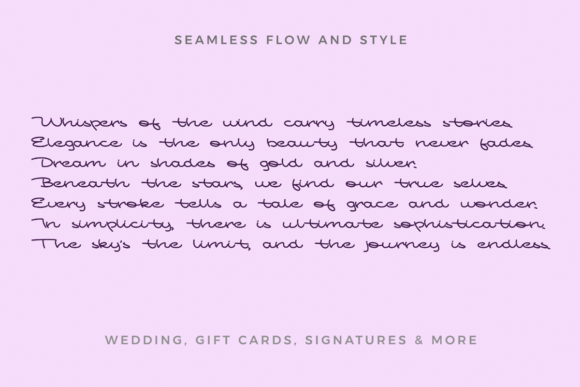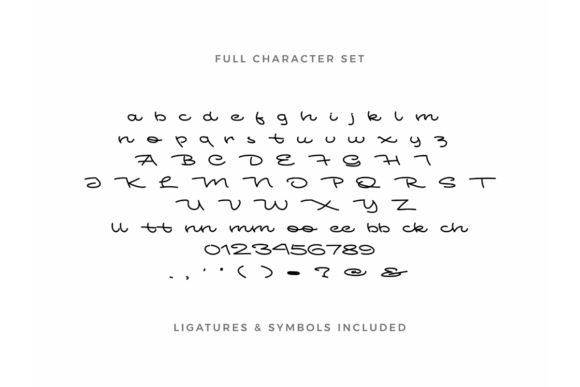
Introducing Darcey: The Enchanting Script Font that Redefines Elegance and Creativity
In the world of typography, few fonts have managed to strike a balance between elegance and creativity as effortlessly as Darcey. This exquisite script font is a masterful blend of fluid handwriting and charming hand lettering, resulting in a unique and captivating design that is sure to leave a lasting impression. Whether you’re a seasoned designer or a crafty enthusiast, Darcey is poised to become your go-to font for adding a touch of sophistication and whimsy to any project.
The Inspiration Behind Darcey
Darcey’s design is rooted in the idea of merging the organic feel of handwriting with the deliberate charm of hand lettering. This union gives birth to a font that is not only visually stunning but also warm and inviting. Each stroke in Darcey is carefully crafted to evoke feelings of familiarity and comfort, making it perfect for designs that aim to connect with the audience on a personal level.
Key Features of Darcey Font
- Unique Lettering Style: Darcey’s distinctive lettering style sets it apart from more traditional fonts. Its elegant and flowing script is perfect for adding a touch of luxury and sophistication to any design.
- Fluidity and Charm: The font seamlessly blends the fluidity of handwriting with the charm of hand lettering, creating a captivating visual experience.
- Versatility: Darcey is incredibly versatile, making it suitable for a wide range of design projects, from branding and advertising to packaging and editorial design.
- Ease of Use: Despite its intricate design, Darcey is surprisingly easy to use, allowing designers to effortlessly incorporate it into their projects.
Enhance Your Designs with Darcey
Darcey’s enchanting script is sure to elevate any design, adding a level of sophistication and elegance that is hard to achieve with more conventional fonts. Here are a few ways you can use Darcey to enhance your designs:
- Branding: Use Darcey to create a unique and memorable brand identity that stands out from the competition.
- Wedding and Event Design: Darcey’s elegant script is perfect for wedding invitations, event branding, and other special occasion designs.
- Packaging: Add a touch of luxury to your product packaging with Darcey’s sophisticated and eye-catching script.
- Editorial Design: Use Darcey to add a level of elegance and sophistication to your editorial designs, such as magazine covers and articles.
Why Choose Darcey?
- Uniqueness: Darcey’s distinctive lettering style ensures that your designs will stand out from the crowd.
- Emotional Connection: The font’s warm and inviting design helps create an emotional connection with your audience.
- Freshness: Despite its classic feel, Darcey maintains a lovely freshness that ensures your designs will always feel current and relevant.
Darcey is more than just a font – it’s a design experience. Its enchanting mixture of elegance and creativity makes it the perfect choice for designers and crafters looking to add a touch of sophistication and whimsy to their projects. With its unique lettering style, fluidity, and charm, Darcey is poised to become a favorite in the world of typography. So why wait? Immerse yourself in the world of Darcey and discover a font that will take your designs to the next level.